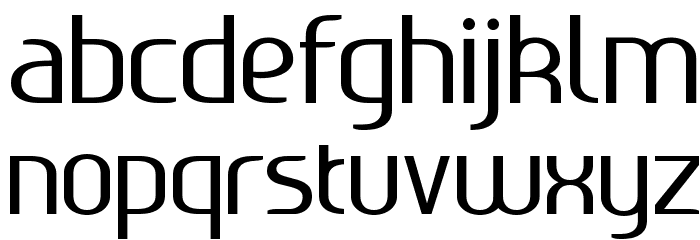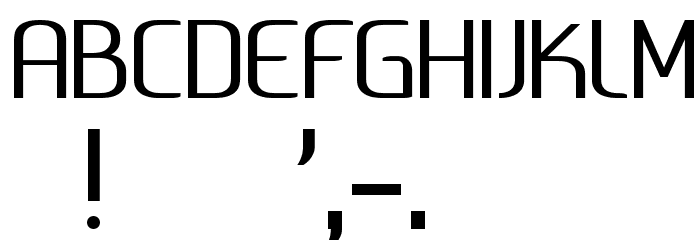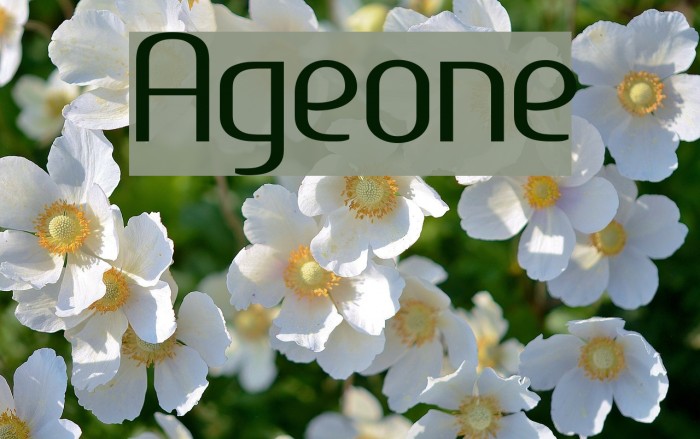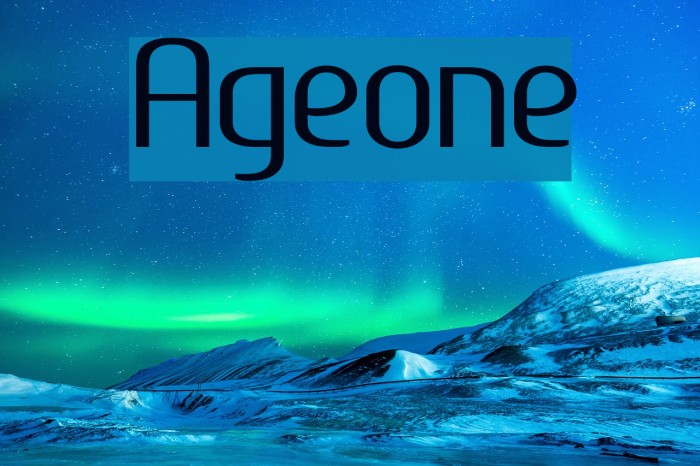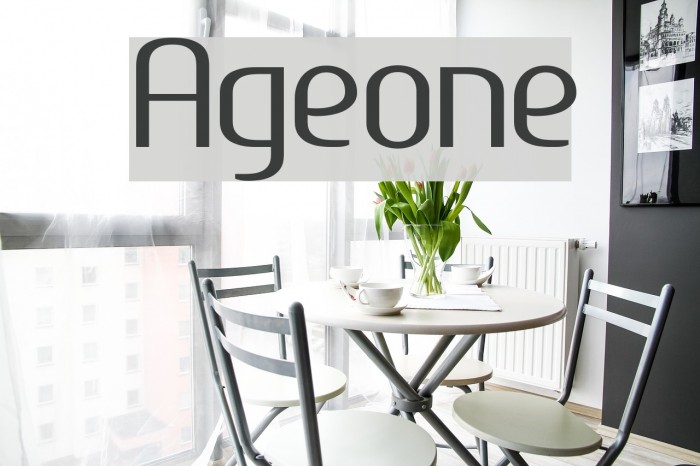
Ageone Font
This font features a modern and sleek design with clean lines and a geometric structure. The characters are uniform in width, creating a harmonious and balanced appearance. The uppercase letters are bold and assertive, while the lowercase letters maintain a consistent flow with slightly rounded edges. The numerals are clear and legible, matching the overall aesthetic. Special characters are distinct and well-integrated into the font's style. This typeface is versatile, suitable for both digital and print media, and can be used to convey a contemporary and professional tone.
A modern, geometric font with clean lines and balanced proportions.
- Proposed Projects: Ideal for branding, advertising, web design, and editorial layouts.